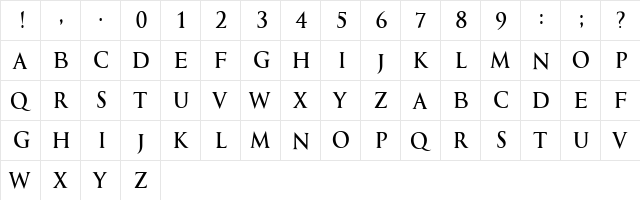
Fashion Regular
Design Context for Fashion Typeface
Fashion takes a measured approach to typography — its balanced proportions and neutral character make it a reliable workhorse for both digital and print work.